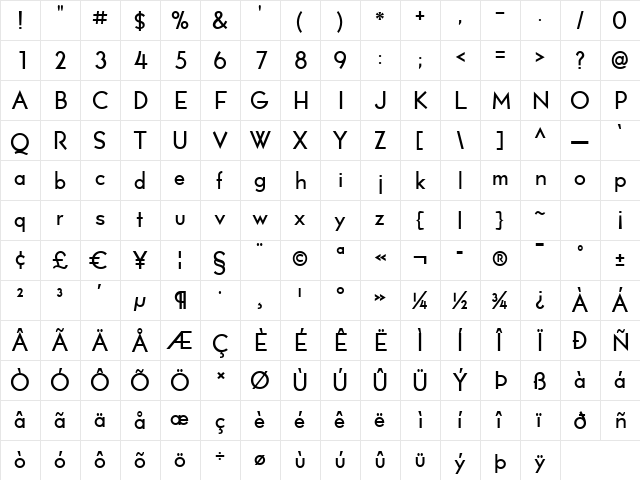
Lionel Text Genuine Regular
Design Context for Lionel Text Genuine Typeface
Lionel Text Genuine offers clean, dependable letterforms without strong stylistic allegiance, making it a practical choice for designers who need flexibility.